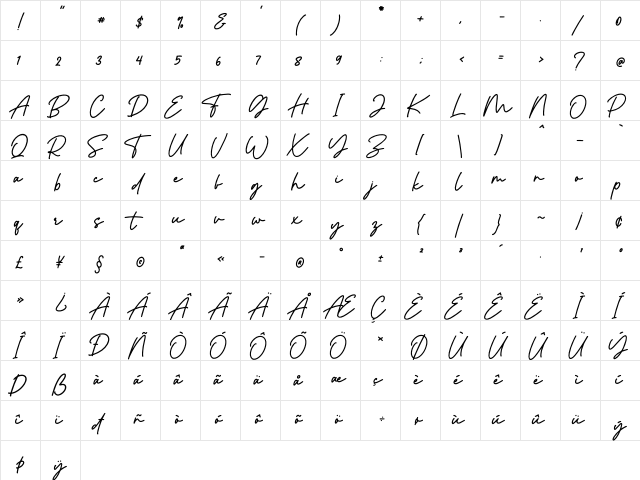
Romedance Regular
| Designer | pen culture |
Design Context for Romedance Typeface
Romedance is a composed and adaptable typeface that performs quietly and consistently across a wide range of design contexts.